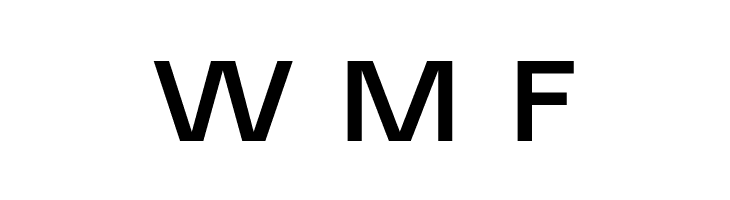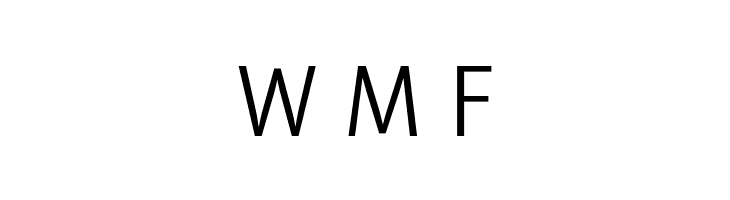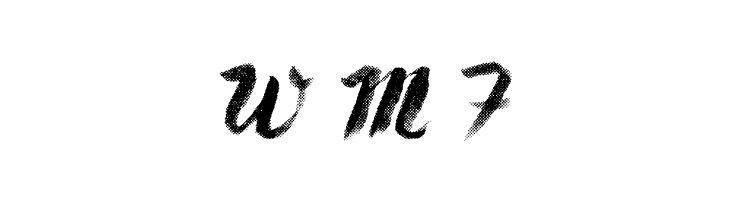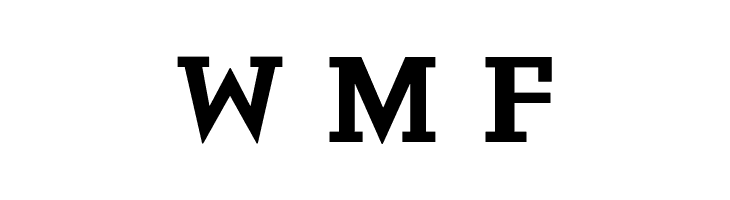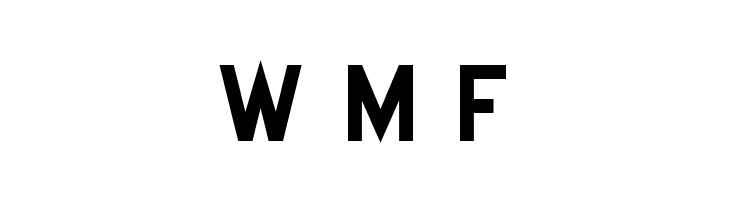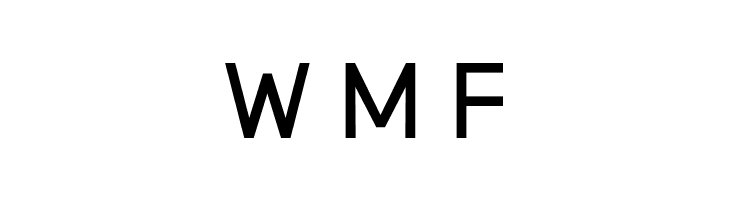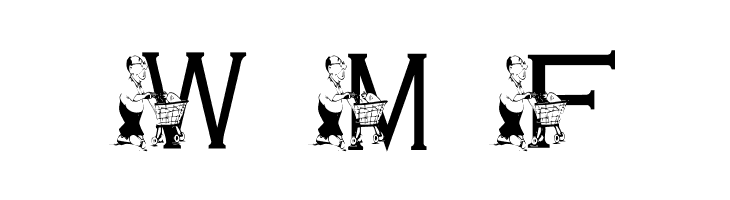
A monospaced, pixelated font ideal for coding and technical documentation.
( Fonts by imagex )
A bold, textured script font with a hand-painted, dynamic style.
( Fonts by Typodermic Fonts )
A bold, slab serif font with a classic yet modern appeal.
( Ana - www.anasfonts.com/ )
A modern, clean sans-serif font with consistent stroke width and excellent readability.
( Anton Bohlin - antonbohlin.com )
A pixelated, retro-style font with a digital, blocky appearance.
( Chequered Ink - chequered.ink/ )
A bold, rounded font with a modern and playful aesthetic.
( Chequered Ink - chequered.ink/ )
A digital dot matrix font ideal for electronic displays and scoreboards.
( Fábio Fafers - www.fafers.com.br/ )
A classic serif font with unique irregularities, offering a handcrafted feel.
( Jean Catalano )
A modern sans-serif font with clean lines and rounded edges.
( Jeff Bensch - jbensch.deviantart.com )
A bold, geometric font with clean lines and a modern aesthetic.
( K-Type - Keith Bates - www.k-type.com/ )
A modern, geometric sans-serif font with clean lines and uniform stroke width.
( Rachel San )
A clean, modern sans-serif font with balanced proportions and excellent readability.
( Zacchary Dempsey-Plante - ztdp.ca )
A pixelated, retro-style font inspired by early digital displays.
A clean, modern typeface with consistent stroke width and excellent legibility.
( Elbow - www.elbow.com/fonts )
A bold, geometric font with a pixelated, retro digital style.
( Katz Fontz - katzfonts.50megs.com/kg.html )
A whimsical, decorative font with cartoon characters embedded in each letter.
( Lutz Baar - baar.se/aidfonts/ )
A bold, modern font with rounded edges and a slightly condensed style.
( Rogier van Dalen - home.kabelfoon.nl/~slam/fonts/fonts.html )
A modern, geometric sans-serif font with balanced proportions and high readability.
( SnapeFonts - www.johnsnape.com/ )
An ornate, decorative font with intricate, artistic frames around each letter.
A clean, monospaced font perfect for coding and technical documentation.
A clean, modern sans-serif monospaced font with low contrast and excellent readability.
A modern, clean sans-serif font with excellent readability.
A bold, outlined font with a modern and impactful style.
A modern serif font with balanced strokes and elegant serifs.
A modern, rounded sans-serif font with excellent readability.
A bold, modern sans-serif font with strong, uniform strokes and excellent legibility.
A modern, clean sans-serif typeface with consistent stroke width and balanced spacing.
A modern, light sans-serif font with clean lines and excellent readability.
A bold, modern sans-serif font with geometric lines and strong presence.